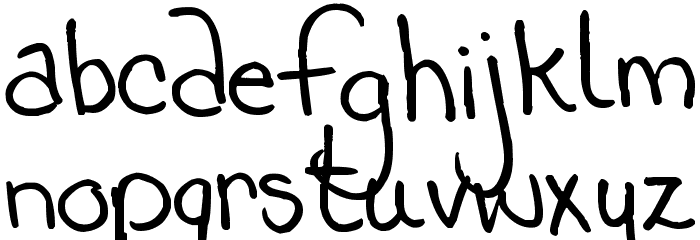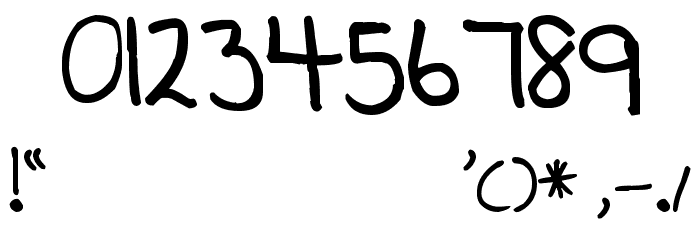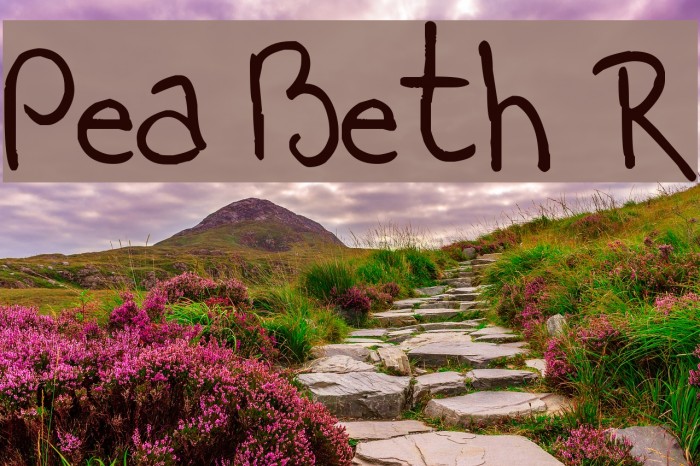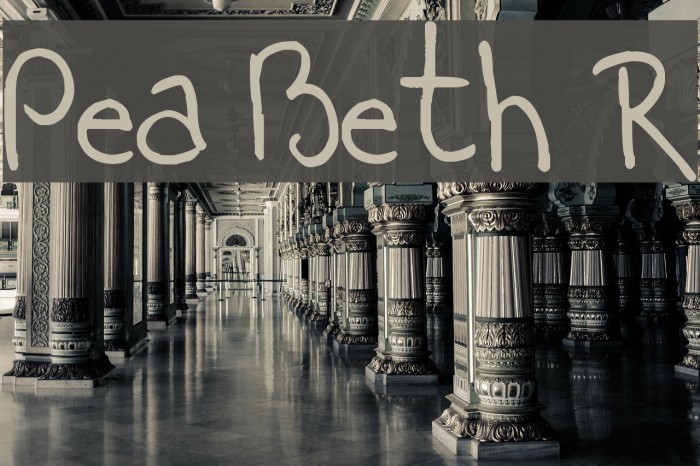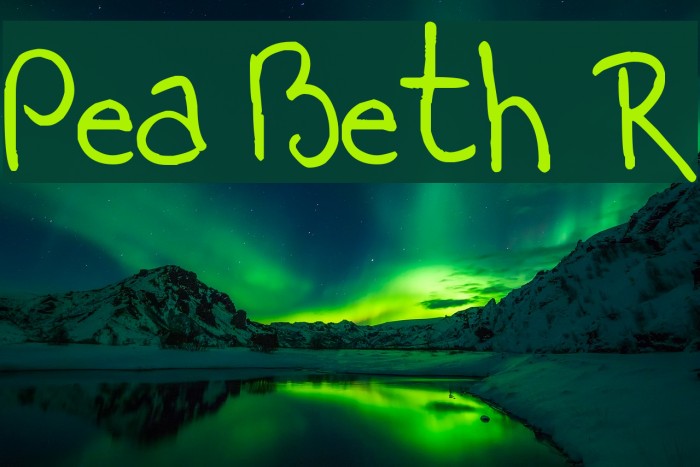
Pea Beth R Font
This font features a playful and casual handwritten style, characterized by its smooth, flowing lines and slightly irregular shapes. The letters have a whimsical, informal appearance, with rounded edges and a consistent stroke width that gives it a friendly and approachable feel. The uppercase and lowercase letters maintain a cohesive look, while the numerals and special characters blend seamlessly with the overall design. This font's unique charm lies in its ability to convey a sense of warmth and personality, making it ideal for creative projects that require a personal touch.
A playful, casual handwritten font with smooth, flowing lines and rounded edges.
- Proposed Projects: Ideal for greeting cards, personal invitations, children's books, and creative branding.
- Overall Style: Casual
- Use Case: Headlines, Logos, Invitations